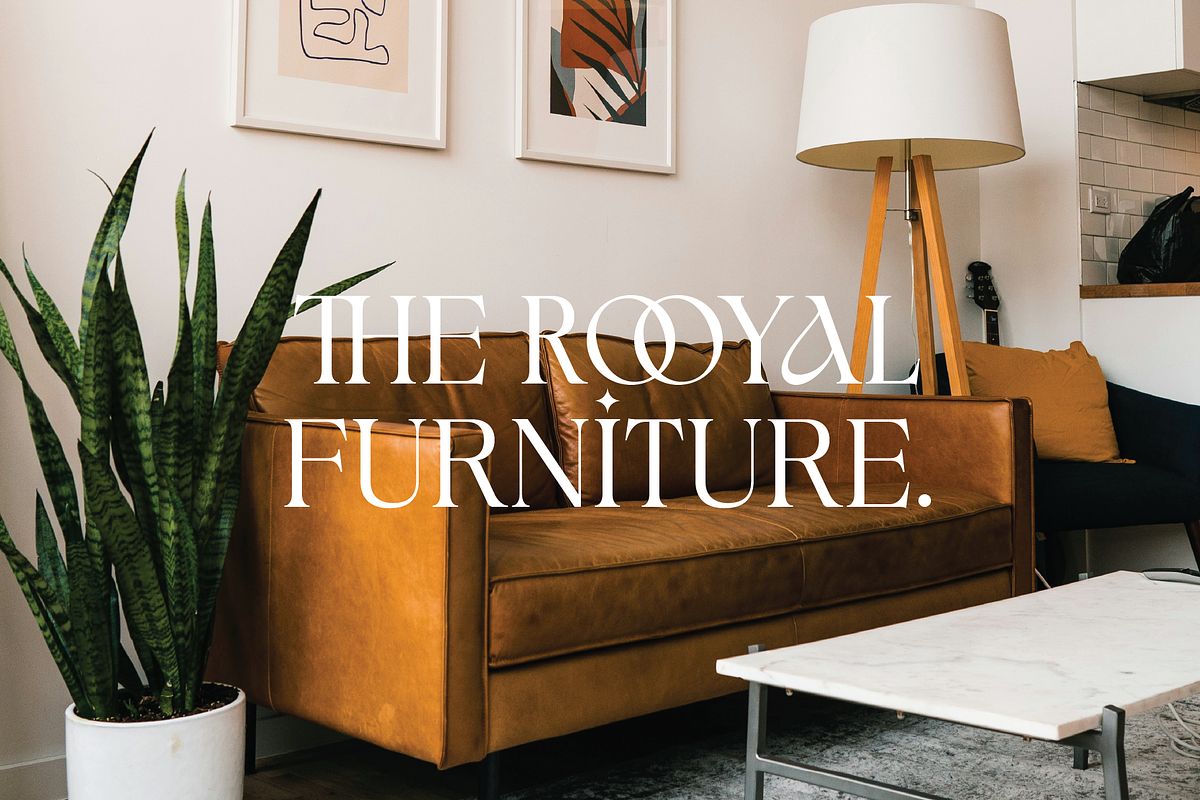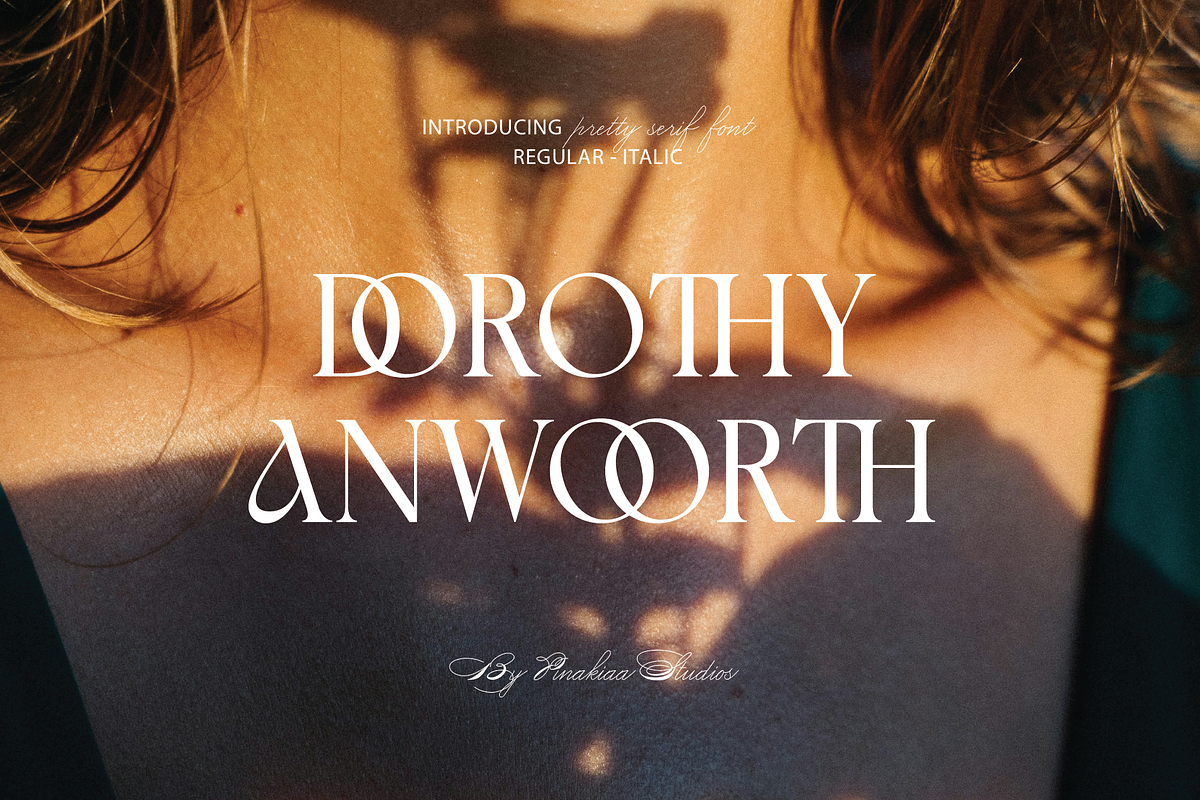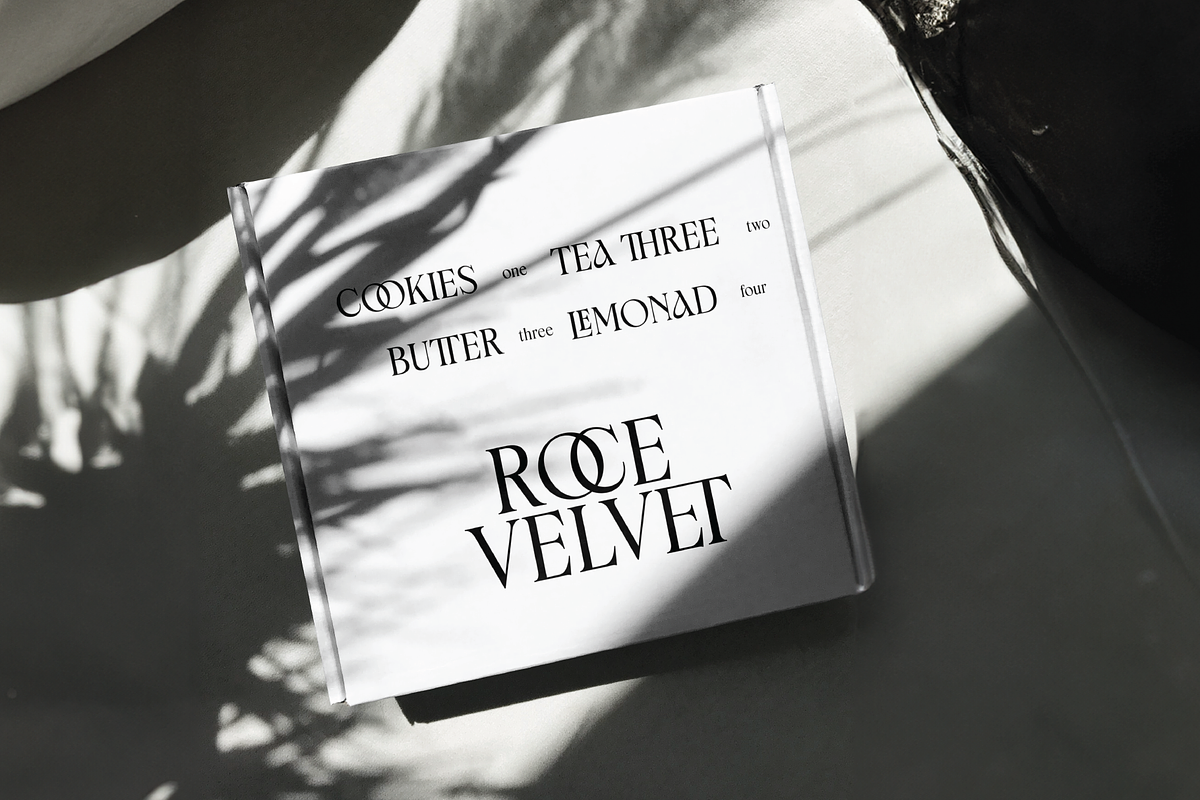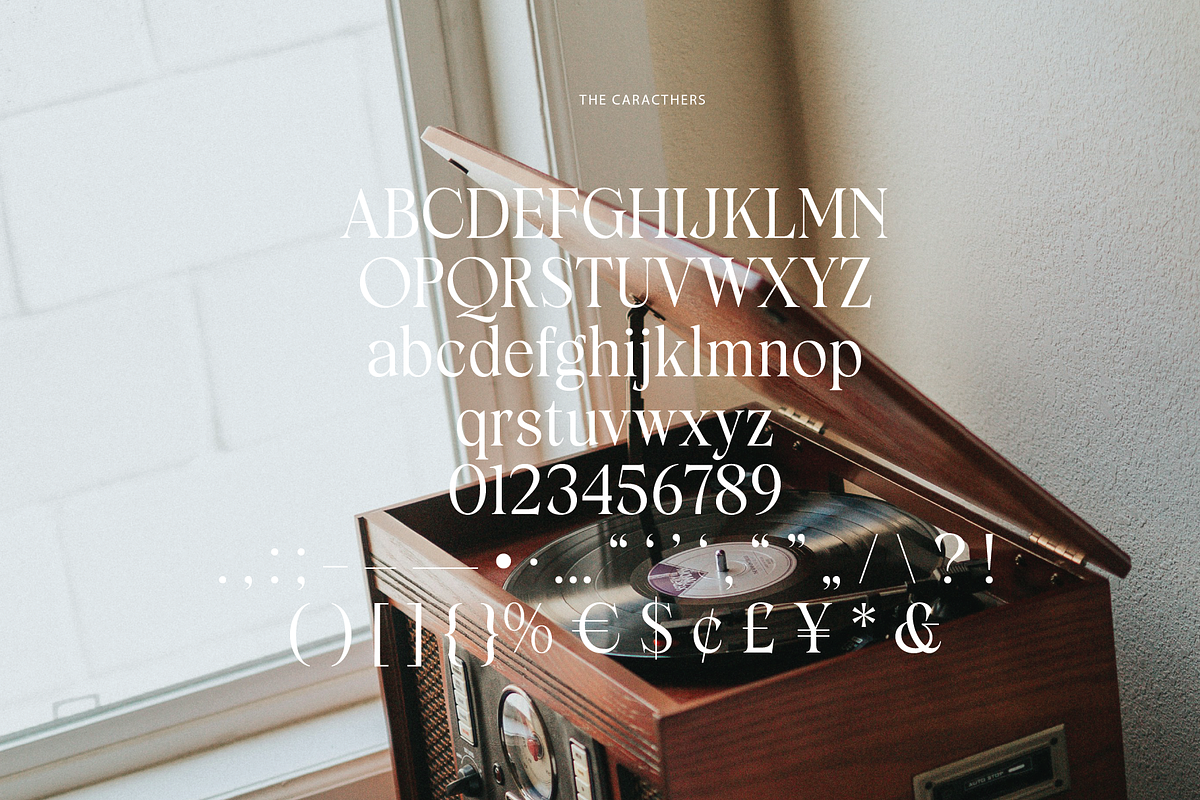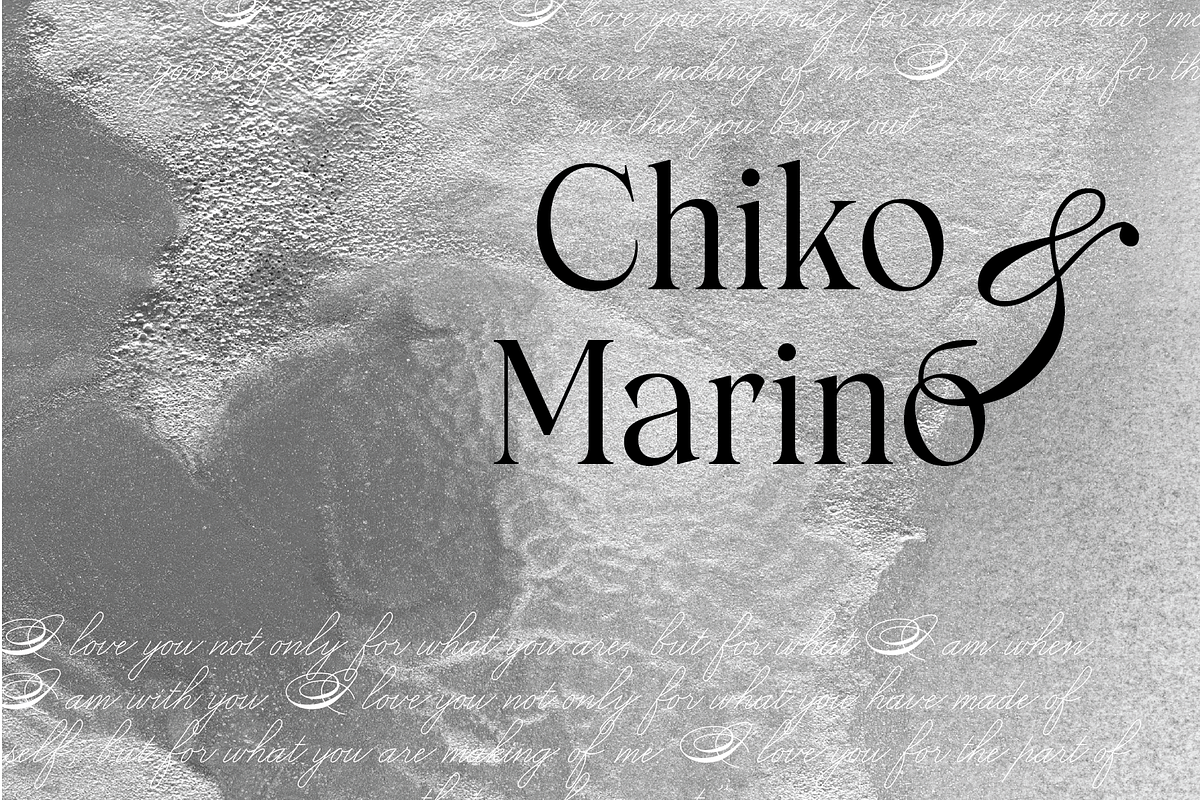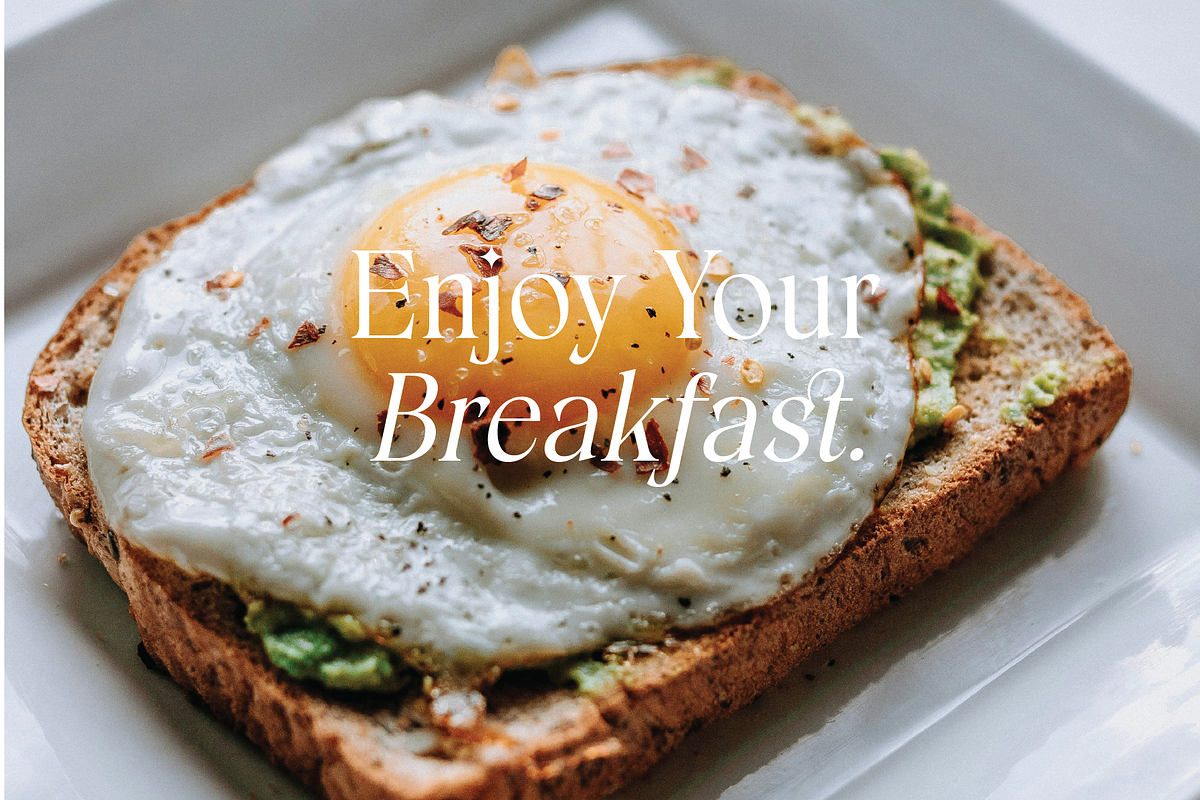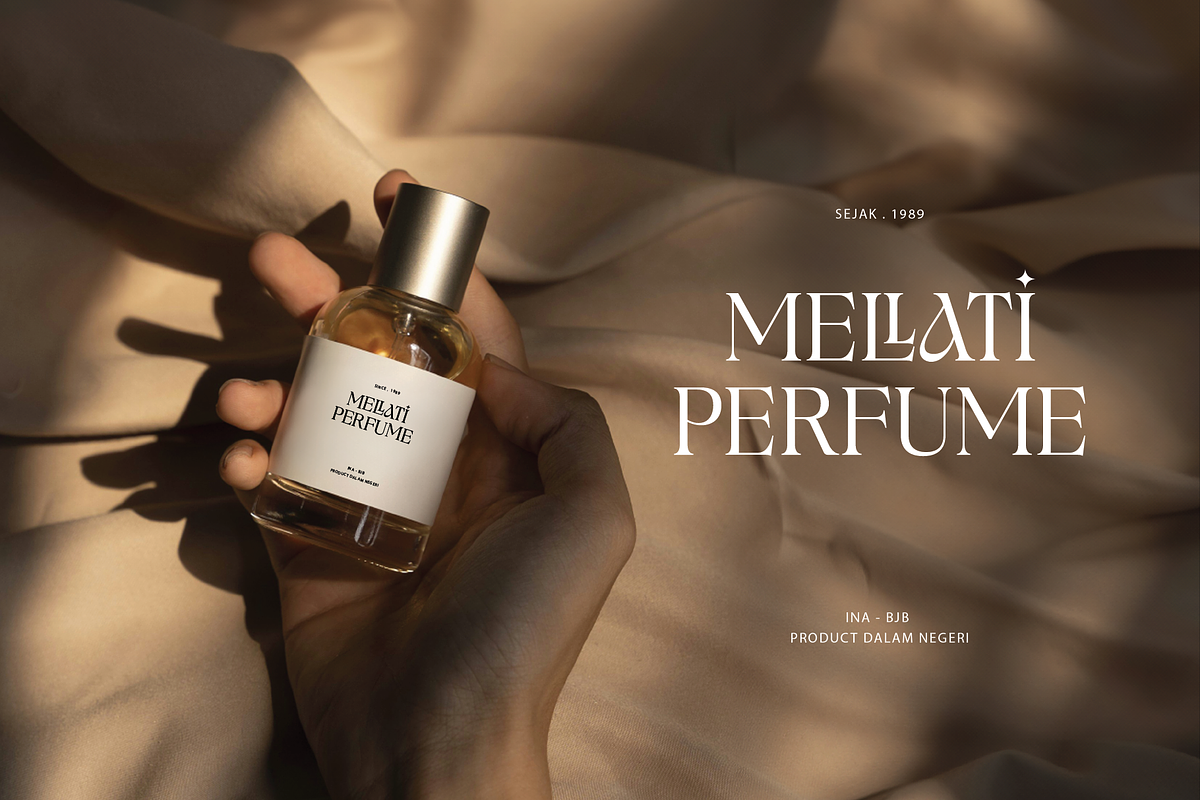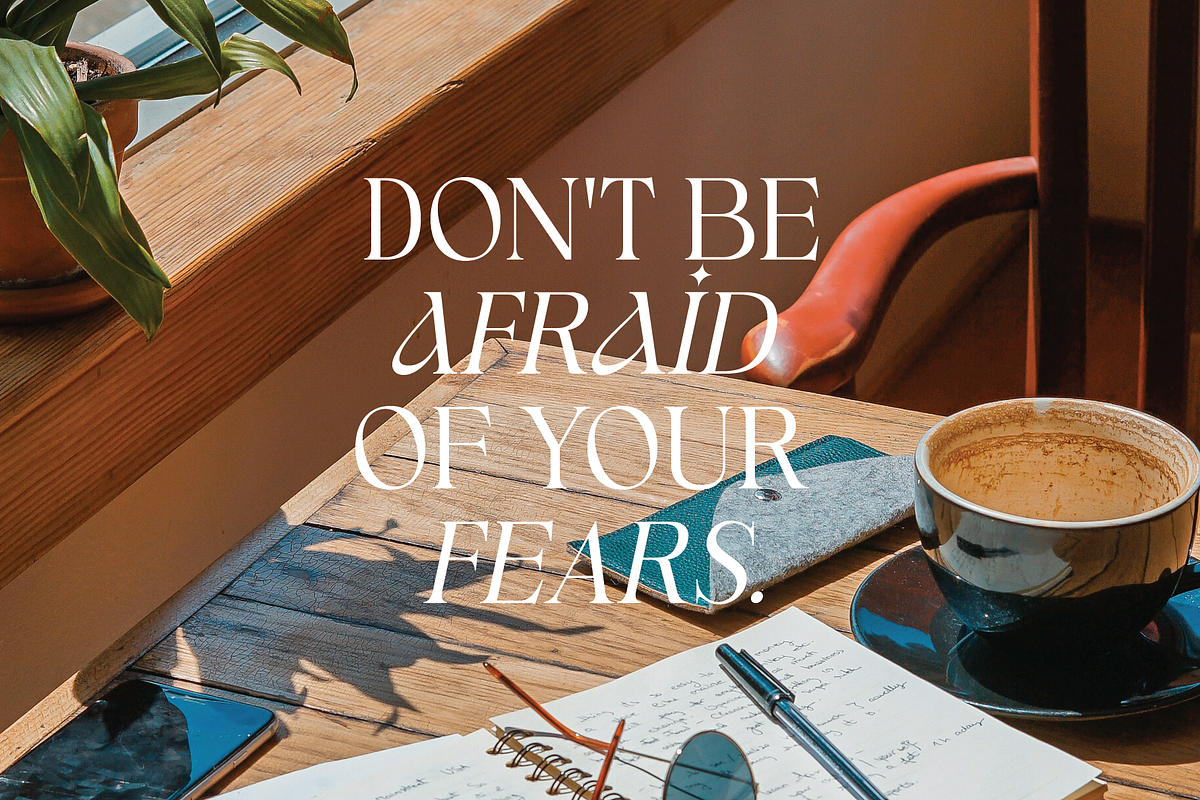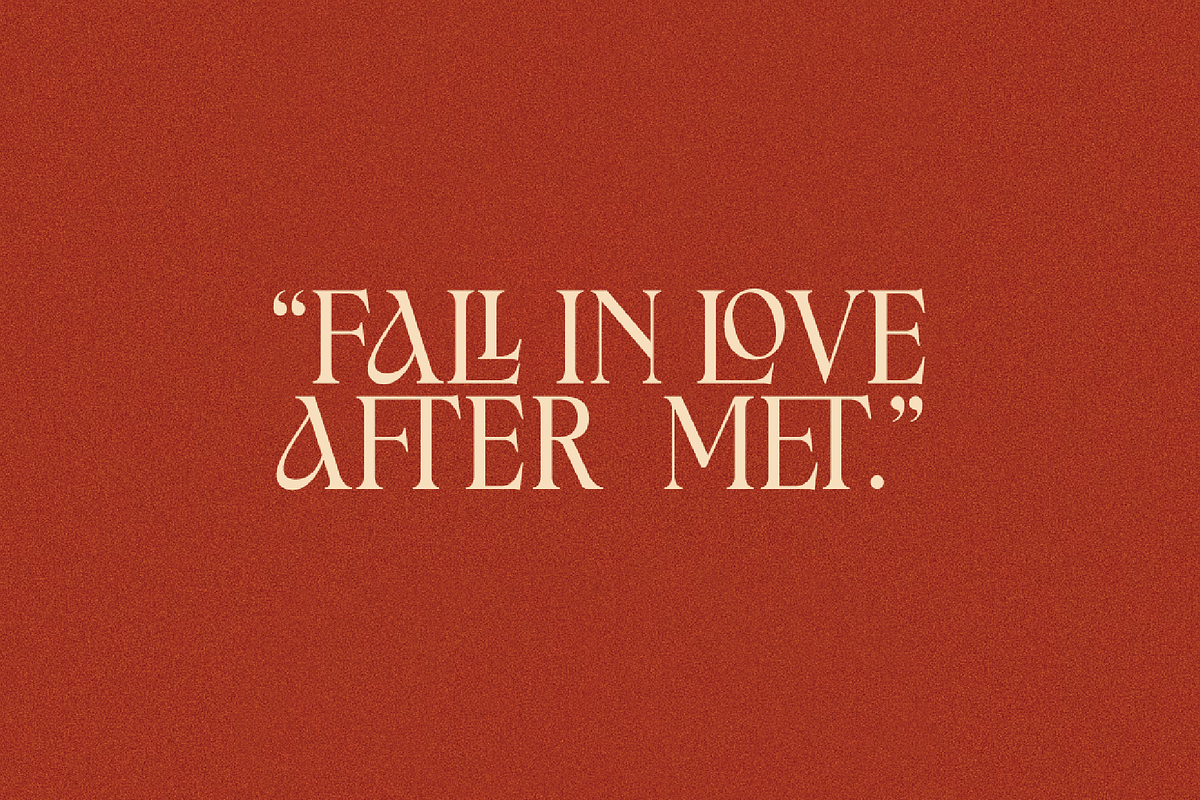
Dorothy Anwoorth - Elegant Serif
Introducing Dorothy Anwoorth - Elegant Serif
Elegant serif combining classic design with a beautiful touch. Characterized by its clean, elegant lines. This font is perfect for high-end branding, editorial designs, and luxury invitations. Each letter shape is carefully crafted to ensure legibility while exuding a refined and classy feel. Whether used in print or digital format, Elegant Serif adds a touch of sophistication and professionalism to any project.